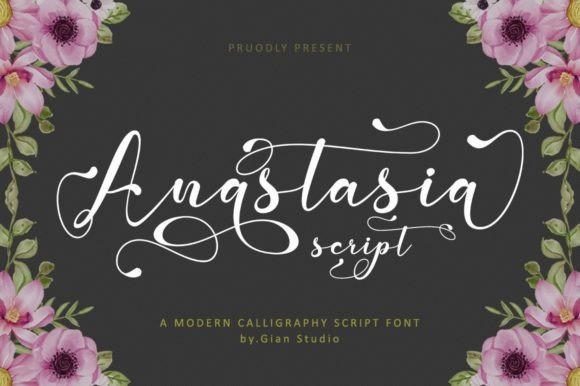
The Anastasia Font: A Modern Calligraphy Game-Changer
I’ll never forget the time I was working on a wedding invitation project, and my client asked for a font that was both elegant and modern. I scoured the internet, tried out countless fonts, but nothing seemed quite right. That was until I stumbled upon the Anastasia Script font. It was love at first sight! 💕
Anastasia Script is a stunning modern calligraphy font that embodies the current handwriting style. Its flowing lines, beautiful ligatures, and elegant glyphs make it perfect for a wide range of creative projects, from branding and wedding invites to magazines, mugs, business cards, quotes, posters, and more.
• ✨ Beautifully crafted glyphs and ligatures: The Anastasia Script font boasts an impressive range of glyphs and ligatures that will take your designs to the next level.
• ✅ PUA encoded for easy access: The font’s PUA encoding means you can easily access all the amazing glyphs and ligatures without any hassle.
• 💫 Modern and elegant feel: Anastasia Script has a distinctly modern feel while still conveying a sense of elegance and sophistication.
⚠️ While the Anastasia Script font is incredibly versatile, it’s worth noting that it may not be the best choice for very small text sizes or body text. Its elegant lines and flowing script are best suited for display text or larger sizes.
🤔 Some users may find that the font’s extensive range of glyphs and ligatures can be overwhelming at first, but trust me, it’s worth getting to know!
The Anastasia Script font was created with inspiration from modern calligraphy and handwritten scripts. Its designer aimed to create a font that was both elegant and approachable, perfect for a wide range of creative projects. While the designer’s story is shrouded in mystery, it’s clear that Anastasia Script was crafted with love and attention to detail.
Q: What is the Anastasia Script font best used for?
A: Anastasia Script is perfect for branding, wedding invites, magazines, mugs, business cards, quotes, posters, and more.
Q: Is Anastasia Script easy to read?
A: Anastasia Script is a script font, and as such, it’s best suited for display text or larger sizes. It may not be the best choice for body text or very small text sizes.
Q: How do I access the font’s glyphs and ligatures?
A: The Anastasia Script font is PUA encoded, making it easy to access the glyphs and ligatures. You can access them through the font’s OpenType features in compatible design software.